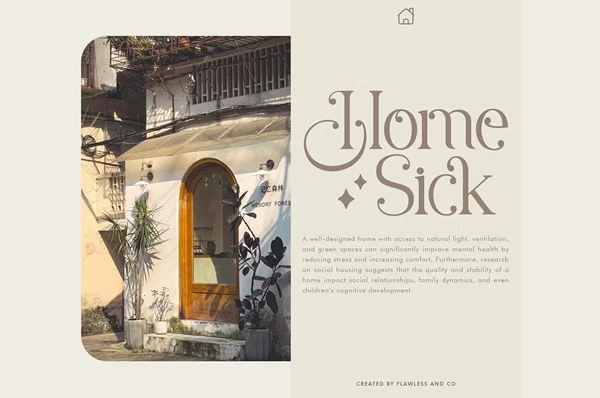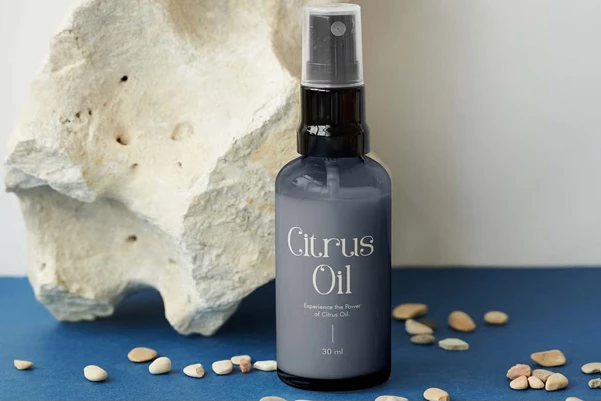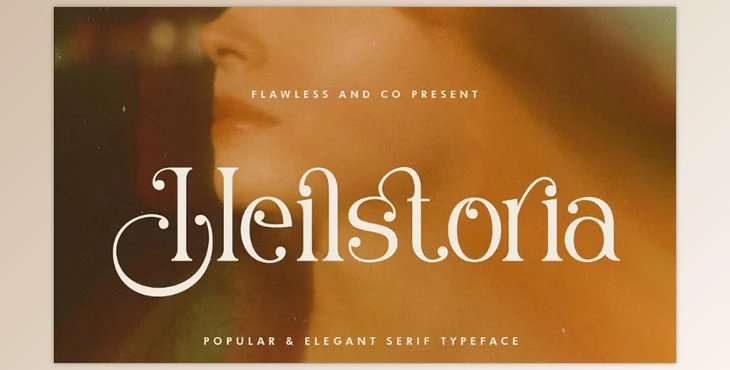
Heilstoria - Elegant Serif Font:
Heilstoria is a sophisticated serif typeface that combines modern design with classical appeal. Its text alternates make it perfect for luxury fashion editorials, lavish wedding invites, high-end packaging and branding, and even chic logos. Because of the elegant details of the font, Heilstoria’s application is versatile and helps it achieve grace and charm in any project.
Some great features of Heilstoria - Elegant Serif Font:
- Offers comprehensive support for multilanguages, and virtually any language you want.
- It fully supports uppercase and lowercase letters (A-Z, a-z) for a multitude of text operations.
- Includes digits (0-9) and essential punctuation symbols to represent complete grammar.
- Supports artistic alternates and more design unique hoaky flexes to custom-tailor objects.